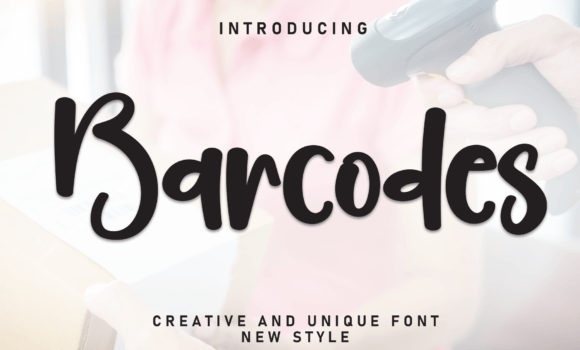
Barcodes Font – Free Download Introduction to Barcodes Font Barcodes is a bold handwritten font with a casual and modern look. 📸 Preview Gallery 6 images 📌 Product Name Barcodes Font 👤 Author andikastudio 📂 Category Explore ⬇️ Download Barcodes